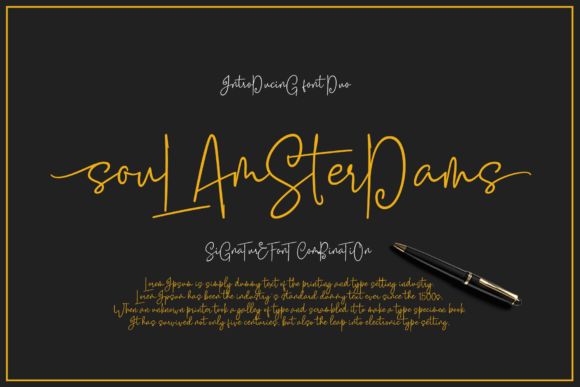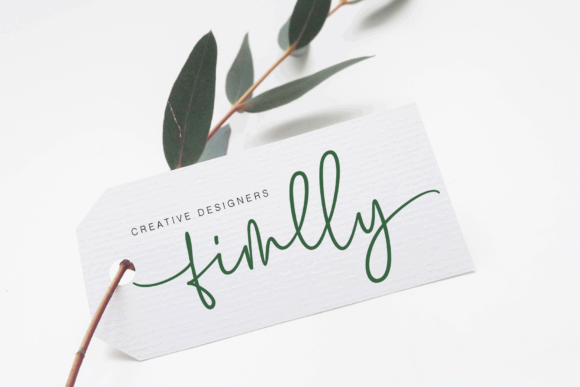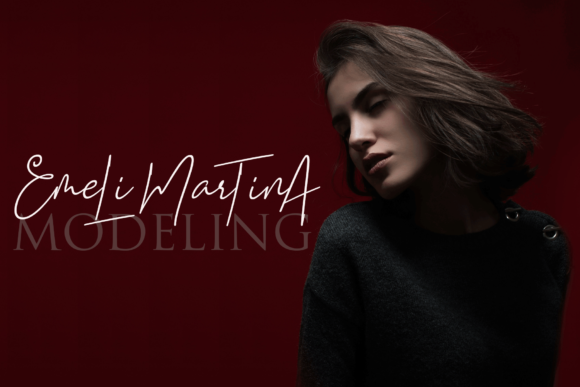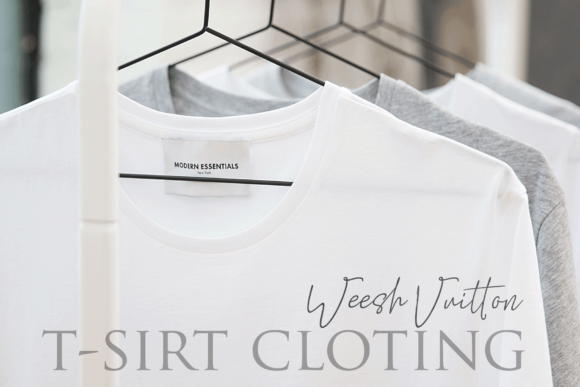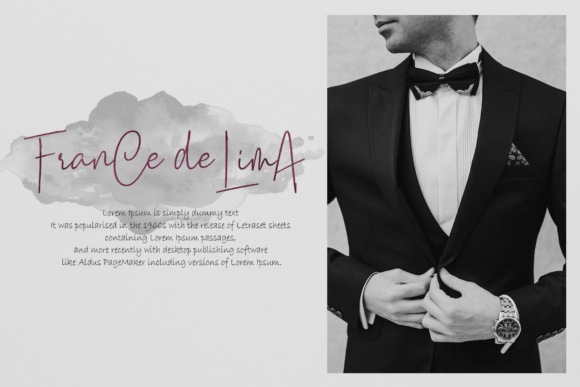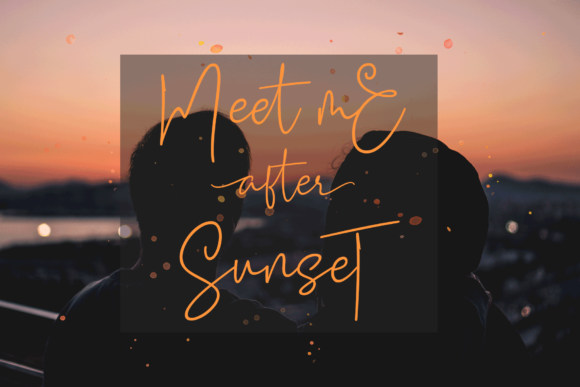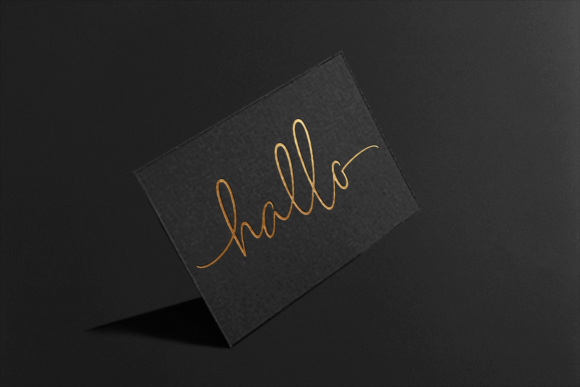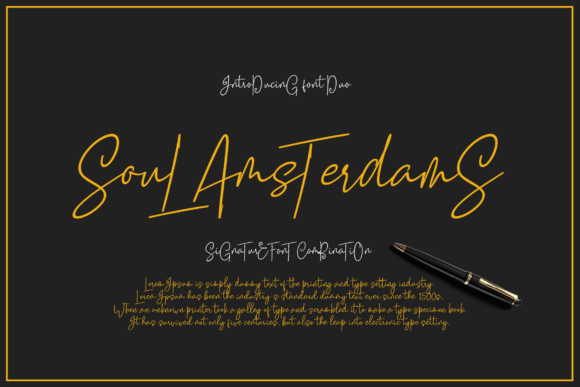
Soul Amsterdams Duo Font
About Soul Amsterdams Duo Font
The Soul Amsterdams is a lovely font duo. It comes in a script and slant version which both have a modern signature style.